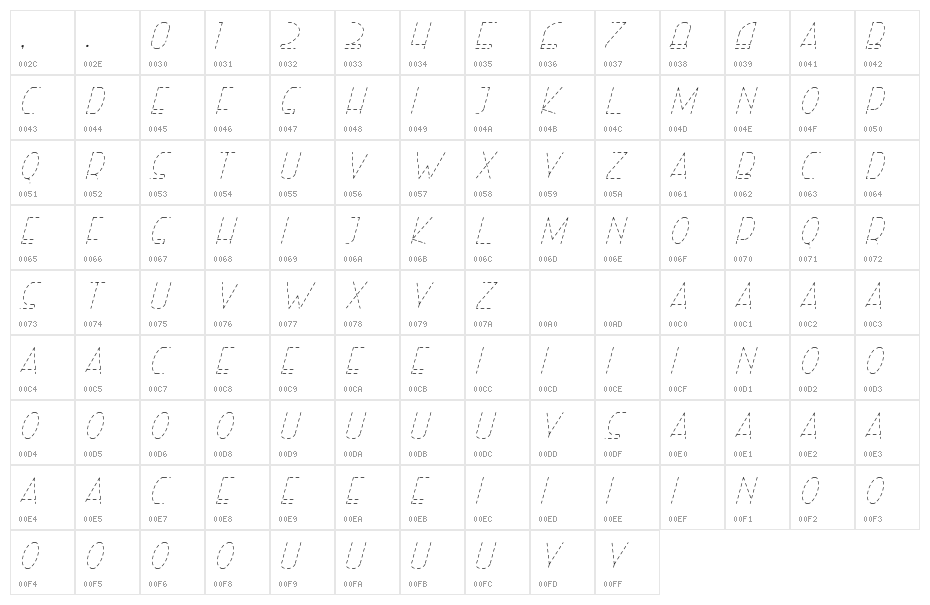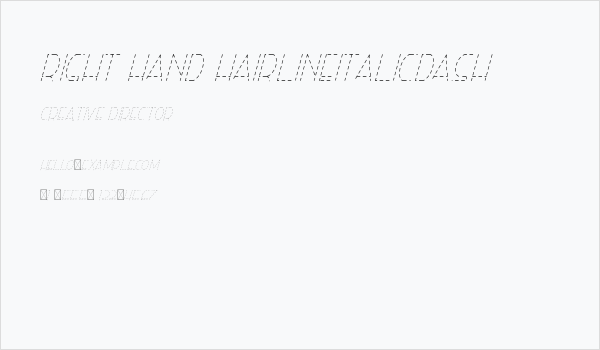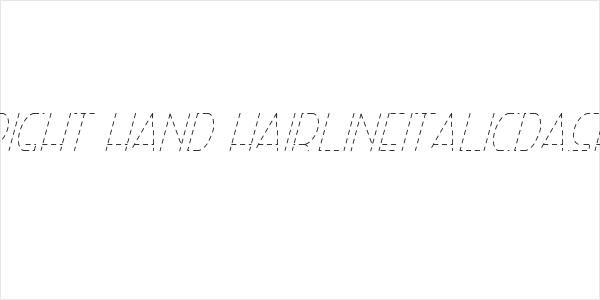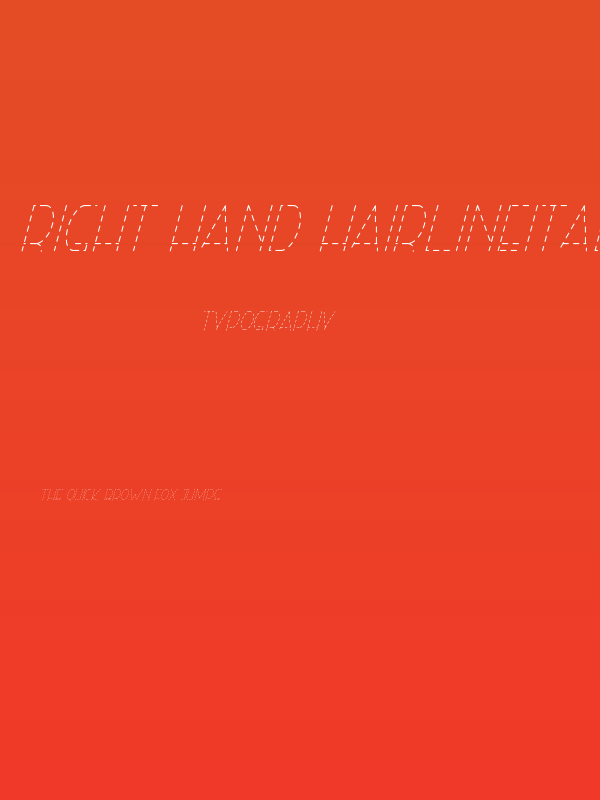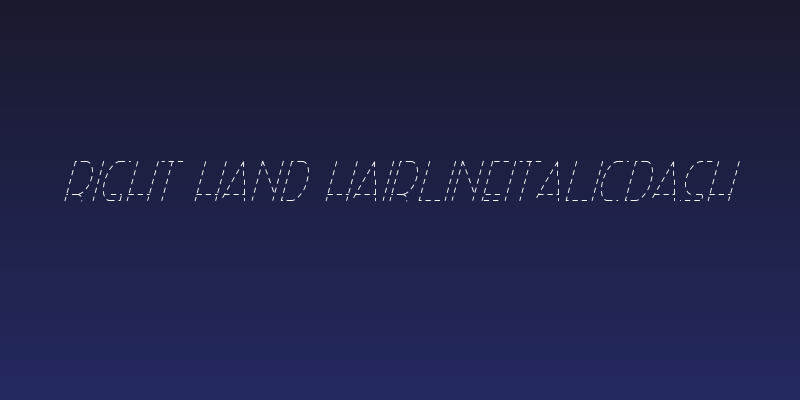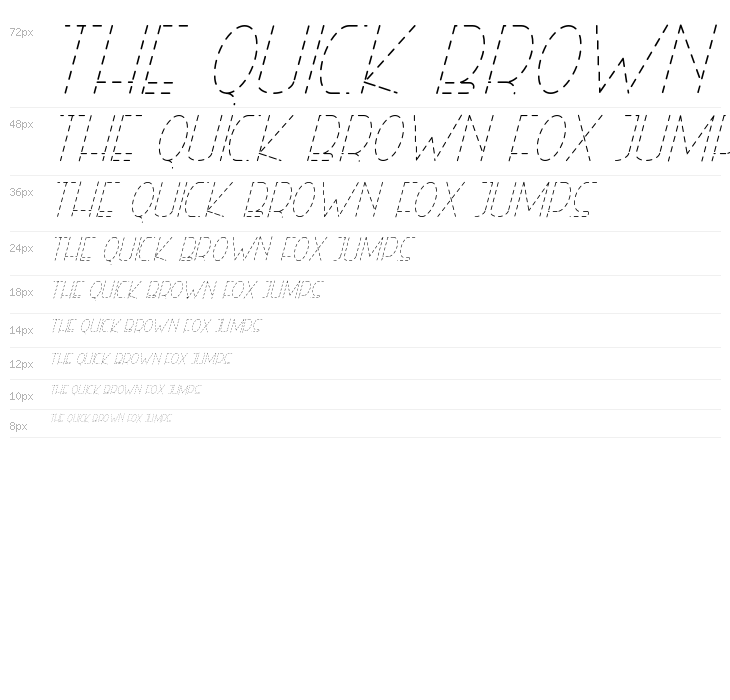
Right Hand HairlineItalicDash Font
Right Hand HairlineItalicDash Description
This font features a unique dashed line style that creates an outline effect for each character. The letters are italicized, giving them a dynamic and forward-leaning appearance. The strokes are consistent in width, maintaining a hairline thickness throughout, which adds a delicate and airy feel. The characters are evenly spaced, ensuring readability while maintaining the distinct dashed aesthetic. This font is particularly eye-catching and can be used to convey a sense of movement and modernity.
| Proposed Projects | Ideal for creative projects such as modern art posters, fashion branding, or digital media where a unique and stylish typeface is desired. |